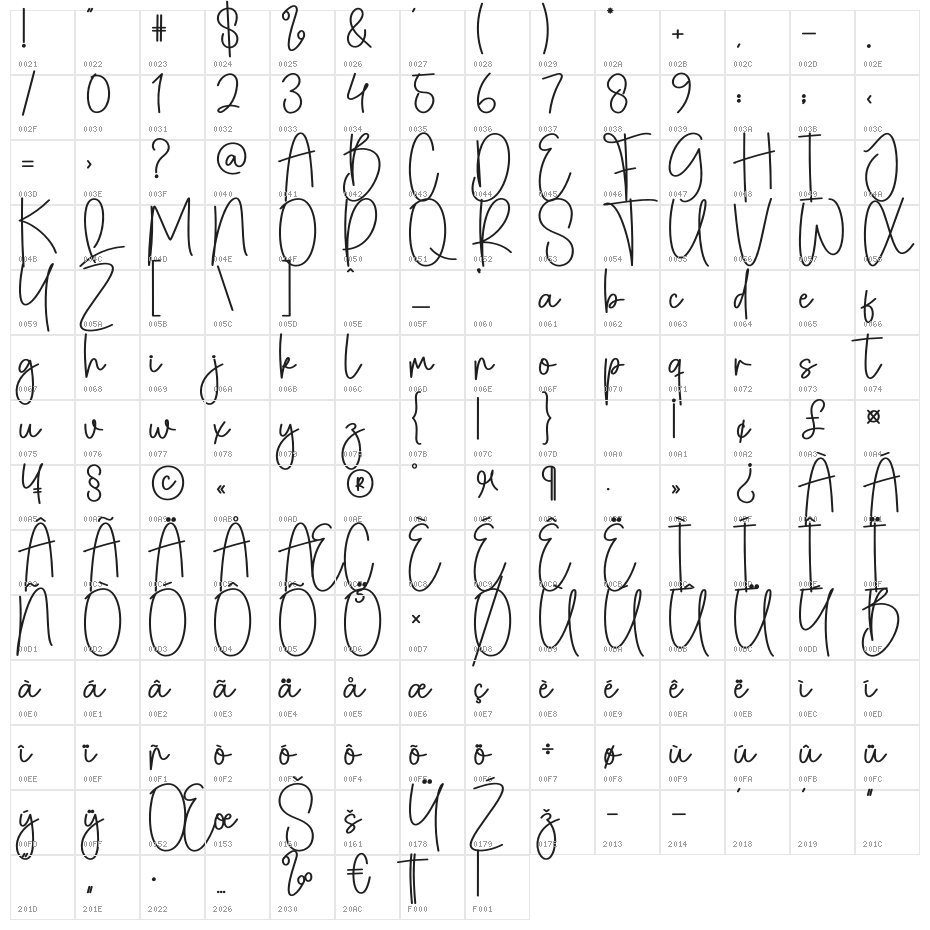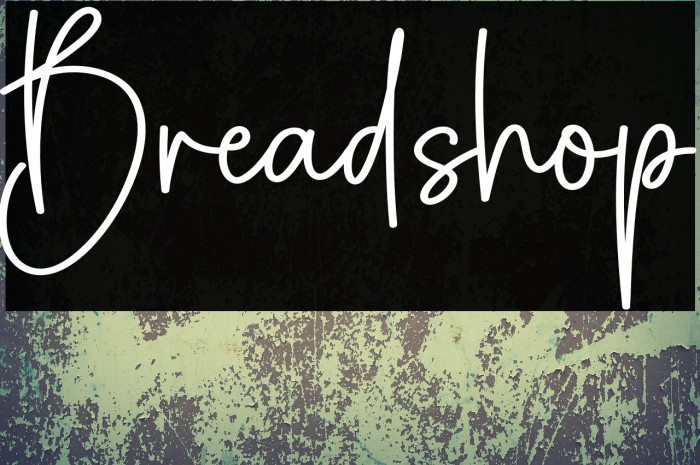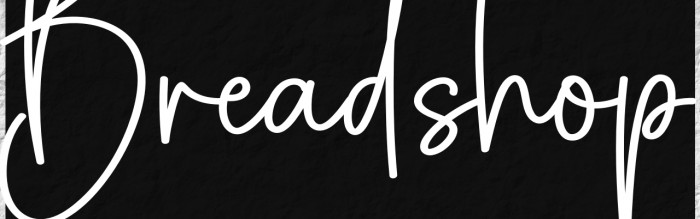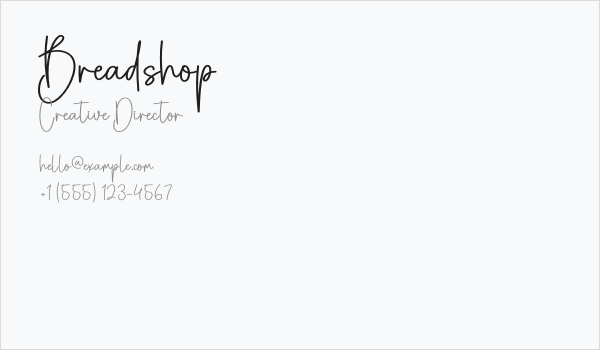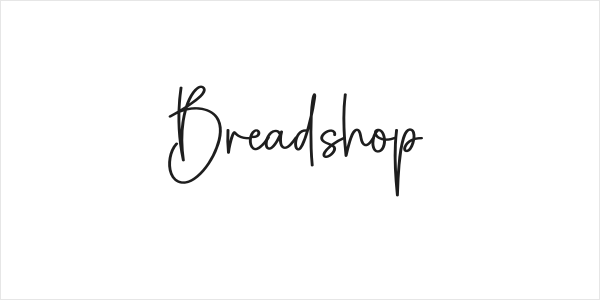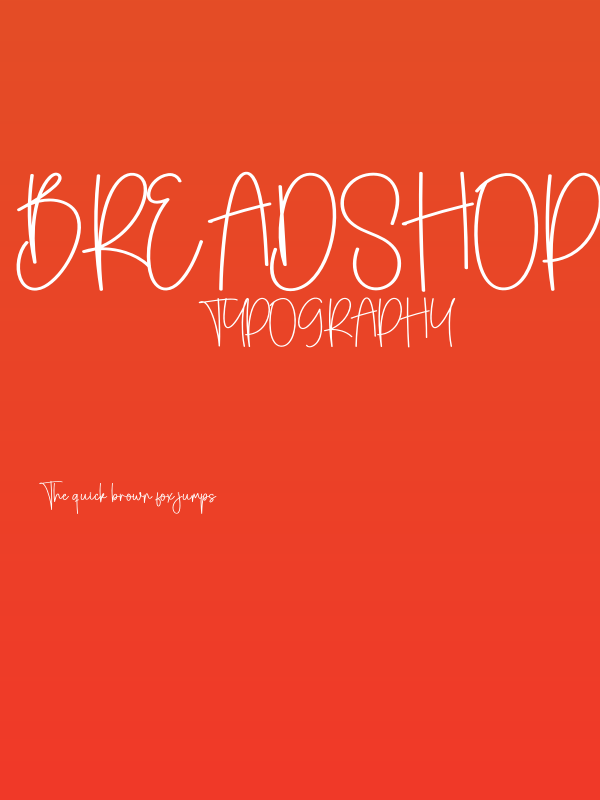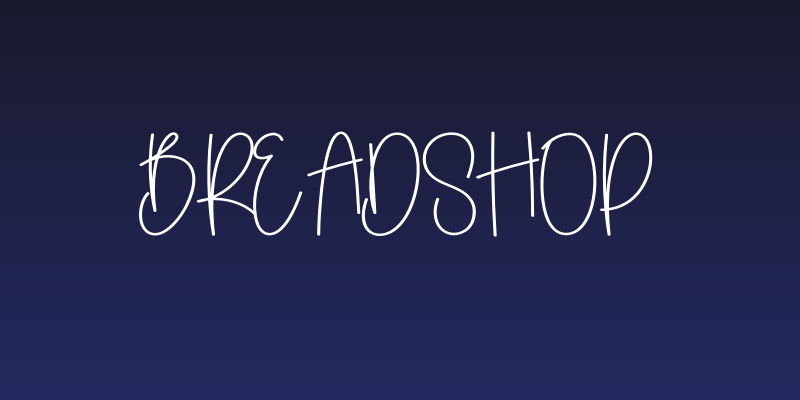
Breadshop Font
Breadshop Description
This font features a playful and whimsical handwritten style, characterized by its tall, narrow letters and slightly irregular strokes. The uppercase letters are distinct with a flowing, cursive-like appearance, while the lowercase letters maintain a consistent, casual script. The numbers and special characters follow the same playful aesthetic, adding a touch of personality to any text. The overall look is informal yet stylish, making it suitable for creative and artistic projects.
| Width | Condensed |
| Use Case | Logos, Headlines, Creative projects |
| Proposed Projects | Ideal for greeting cards, invitations, personal branding, and creative social media graphics. |